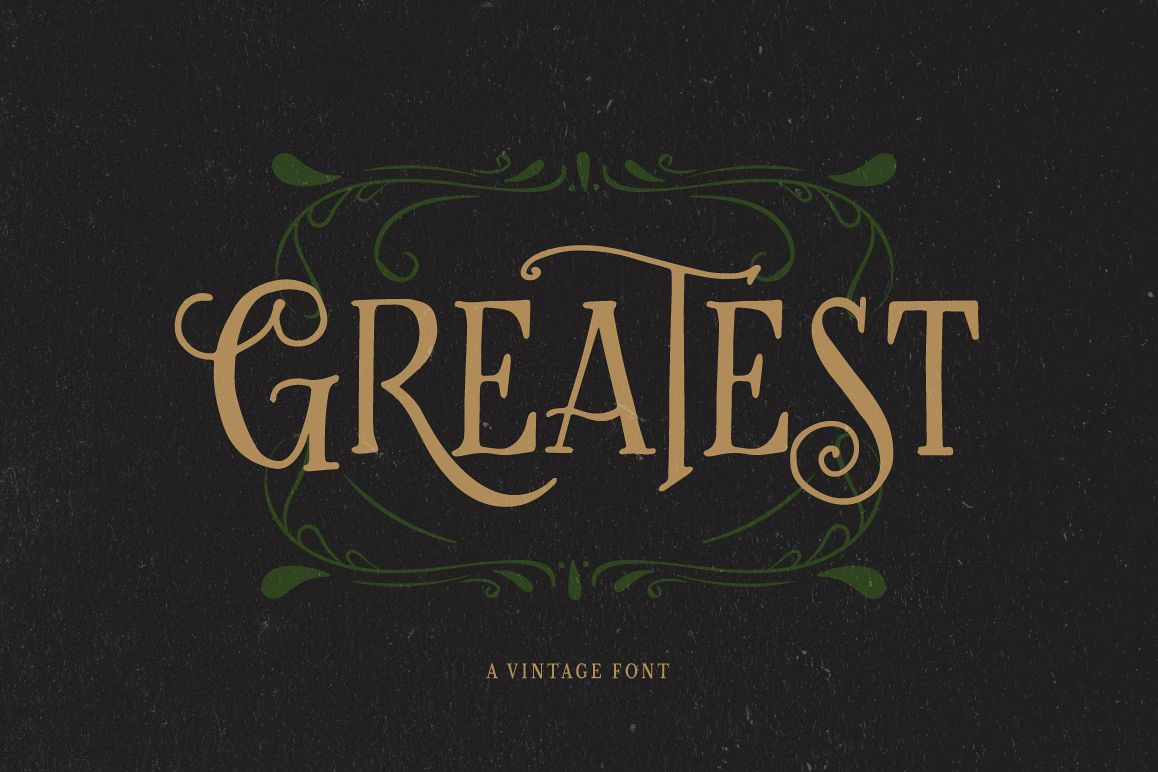
Greatest - A Vintage Font
Greatest-Regular
Inspired by vintage hand-lettering works, here's I present my new font: Greatest. This font can be used to show a natural hand-lettering feels as well as bring the impression of nostalgia of something classic and old. Perfect for logotype, packaging, t-shirt, book cover, poster, etc.